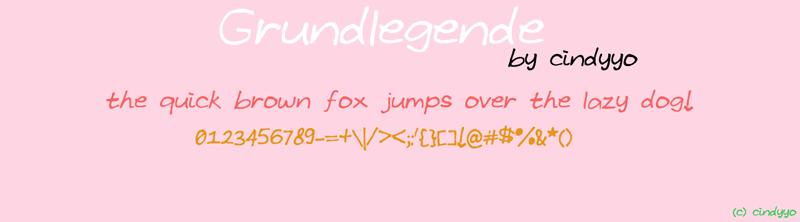
Font name: | Grundlegende |
Author: | Cindyyo |
Note by Cindyyo | |
Grundlegende means 'basic' in Germany. The special is on the wide shape. Enjoy! :) |